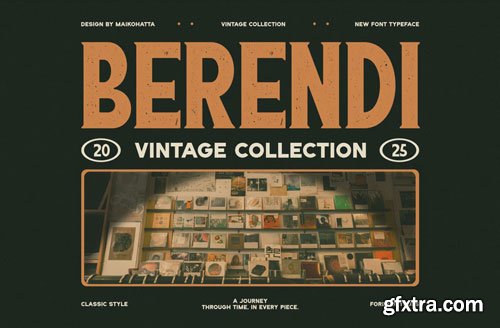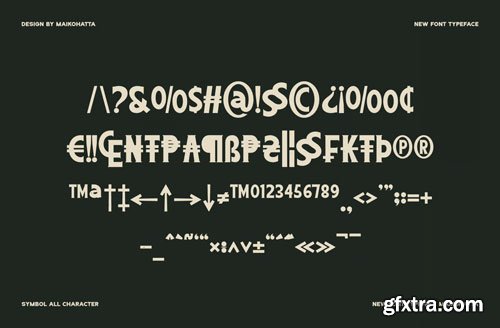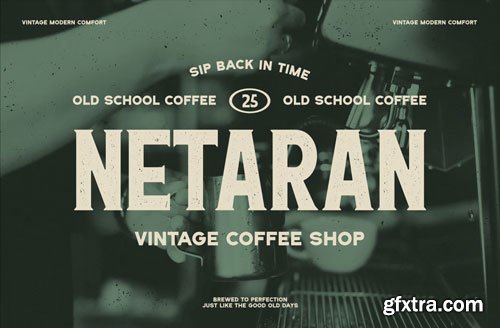
Rebun Fuaneri - Decorative Retro Display Font
Rebun Fuaneri - Decorative Retro Display is a bold and authentic display font. The font is suitable for any branding project like logo, Template Design, esport, and many more. outstanding in a wide range of contexts.